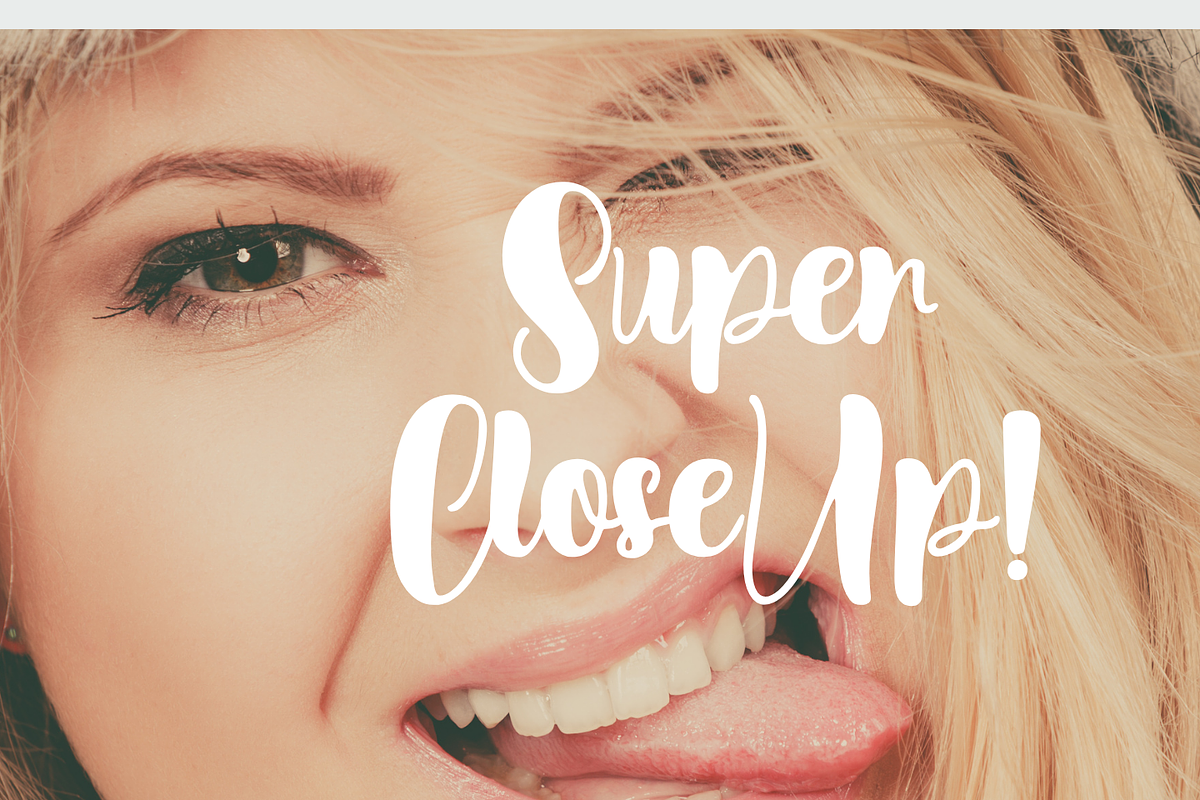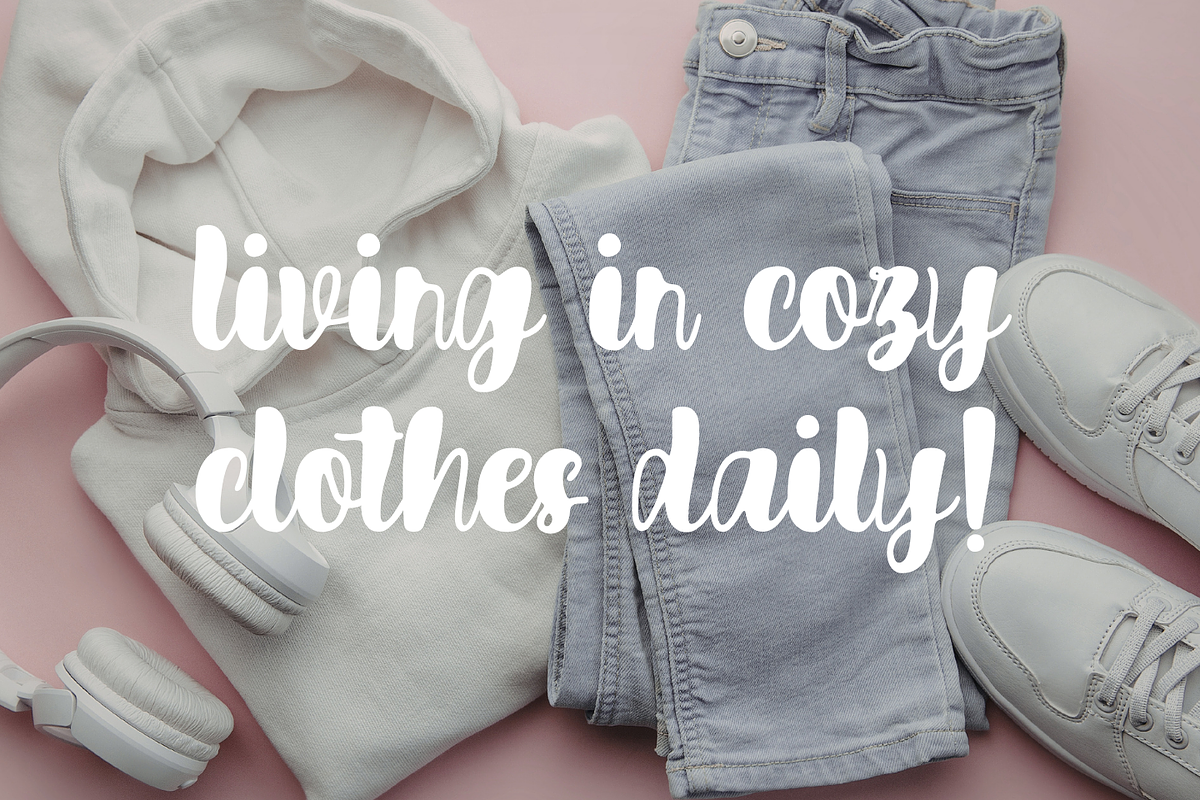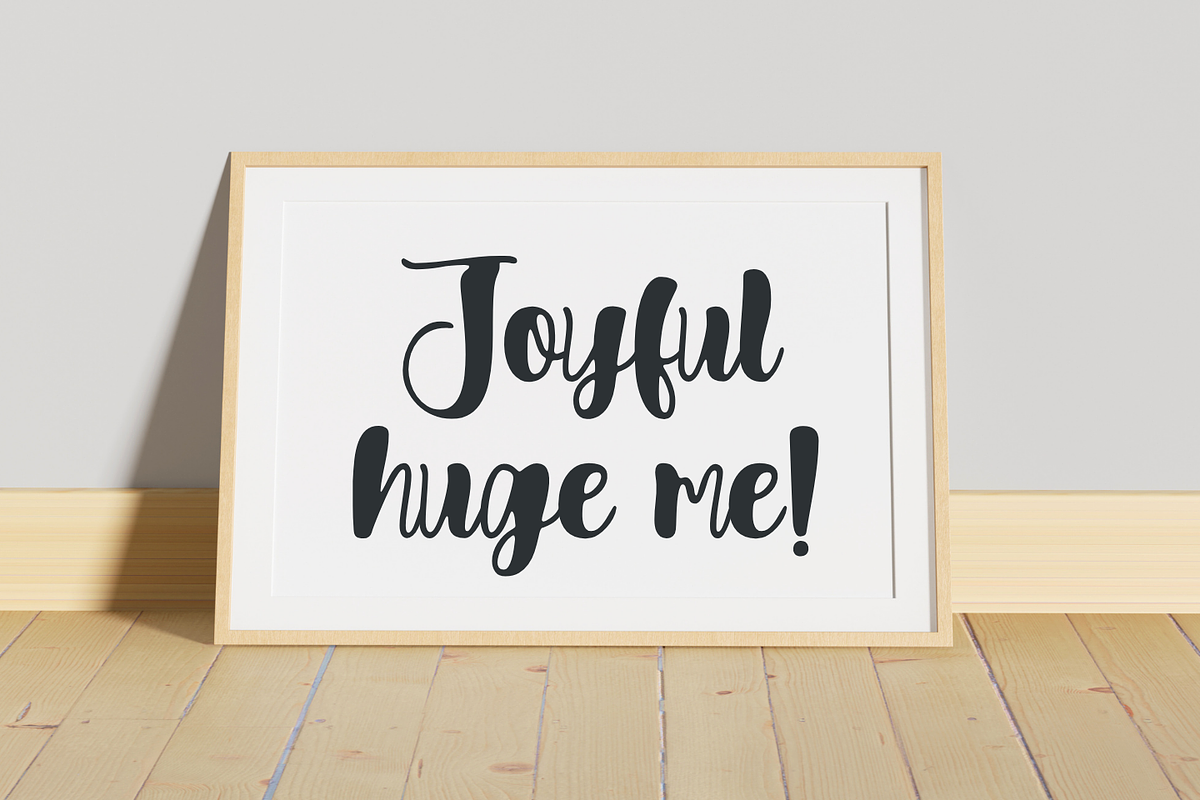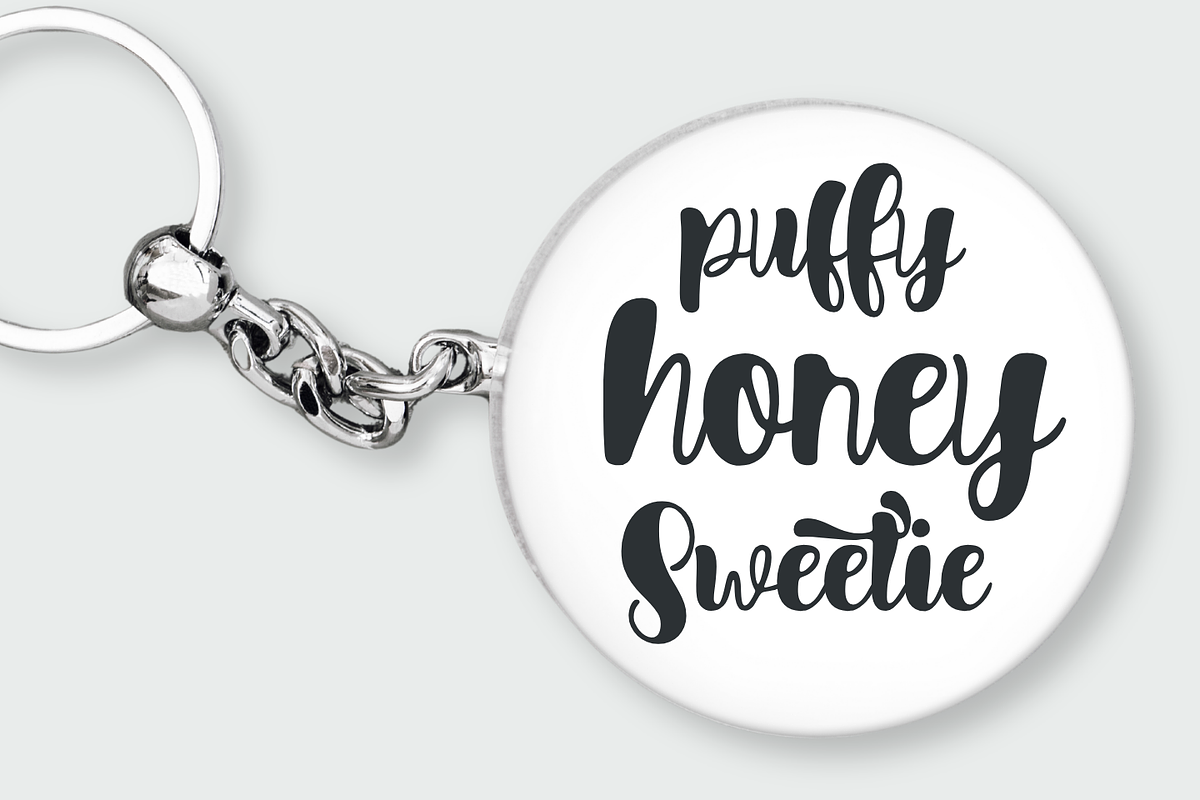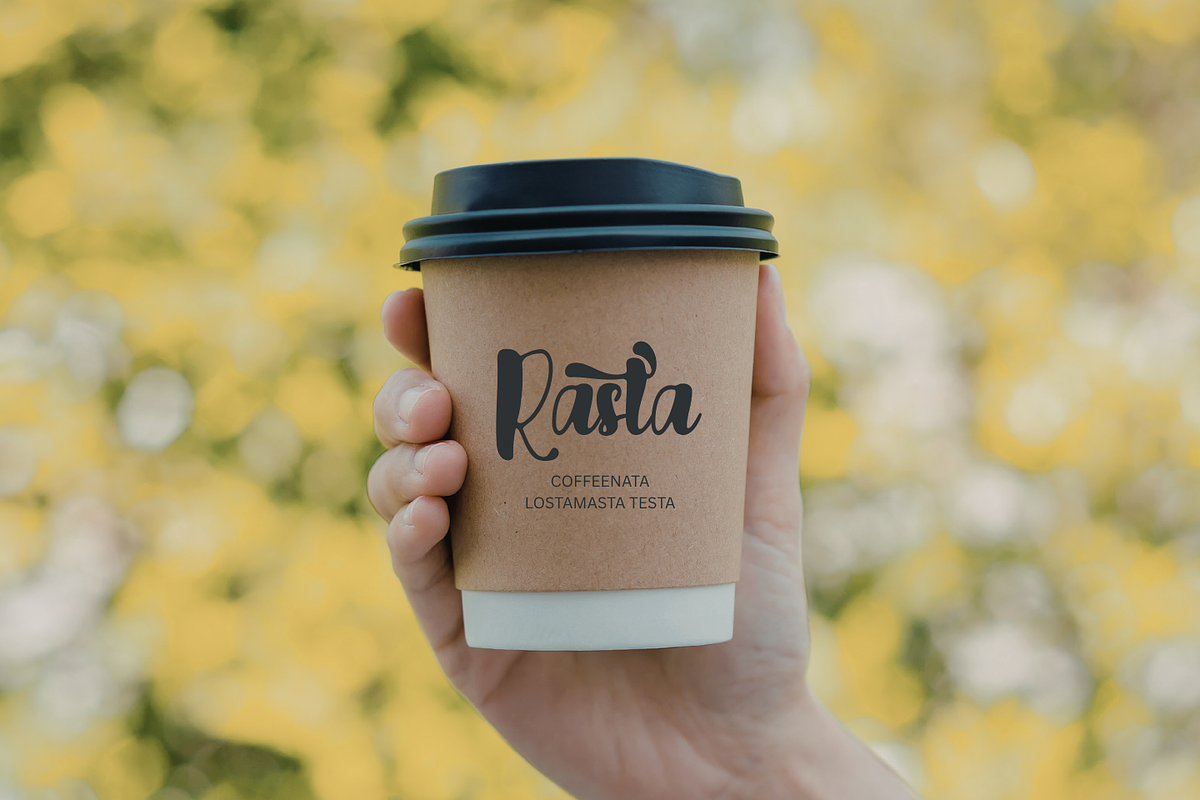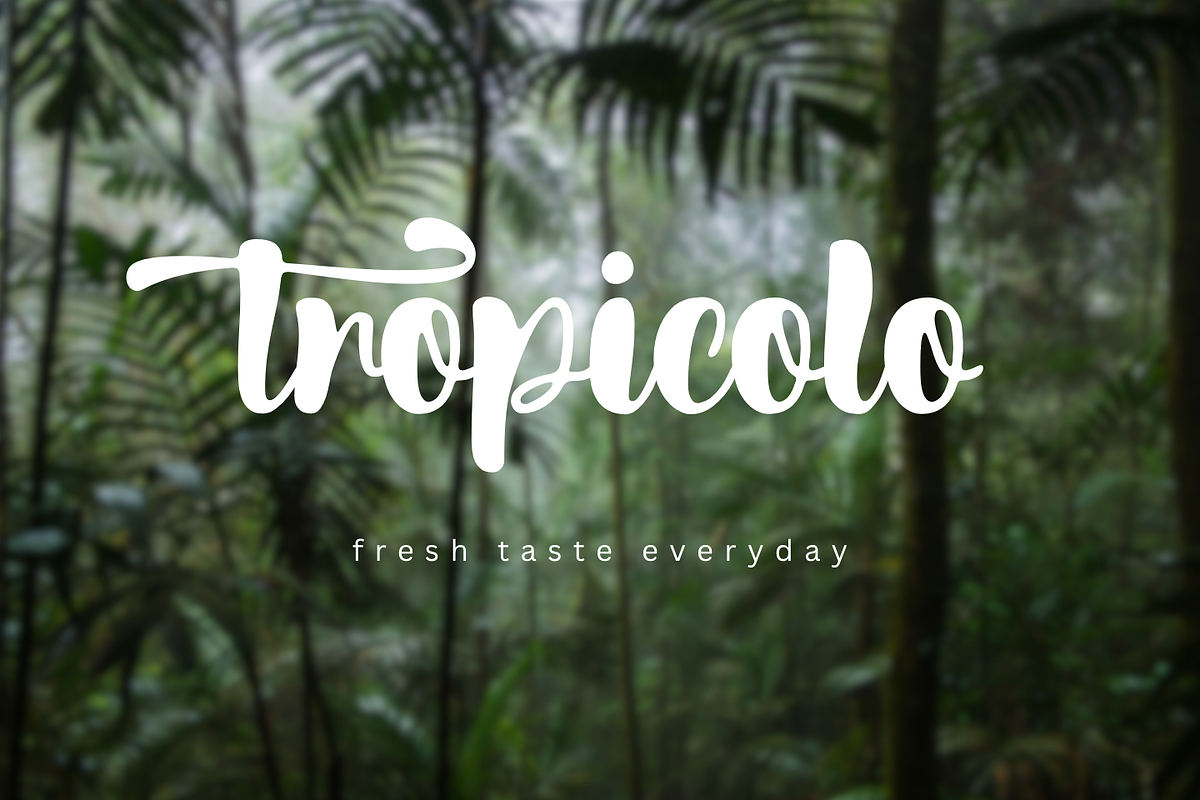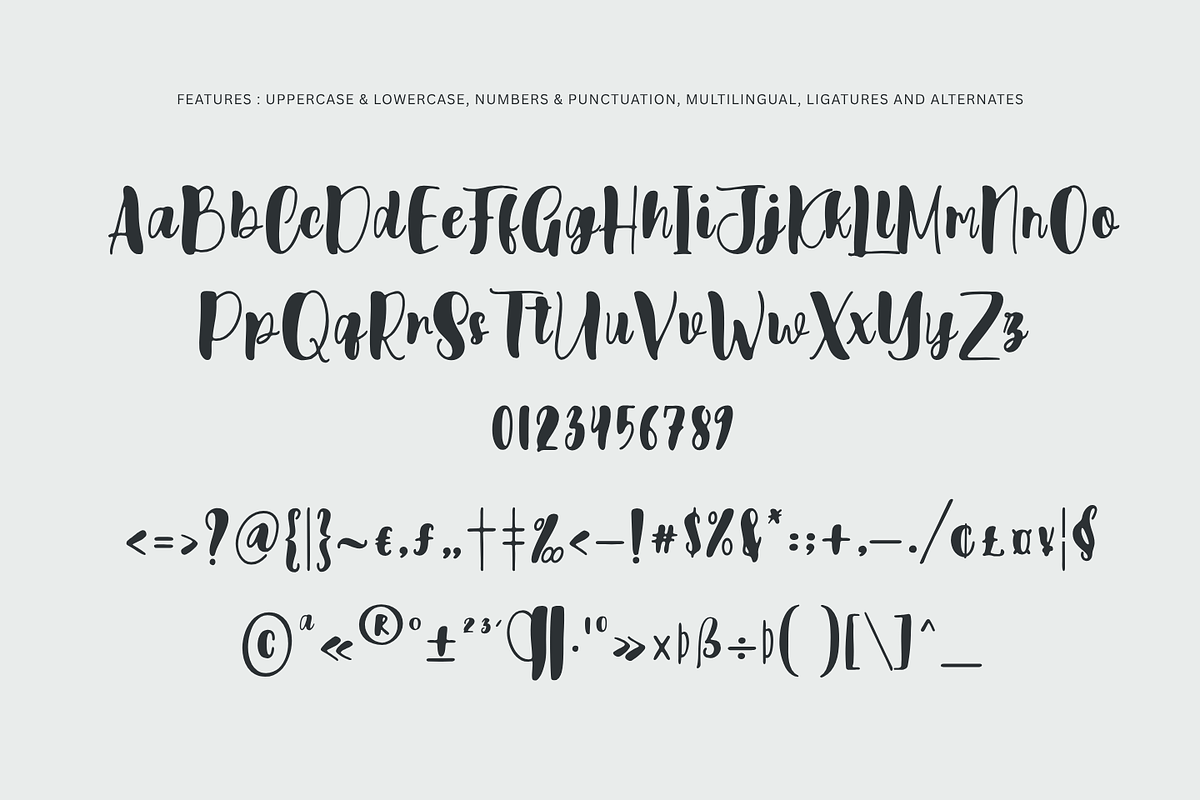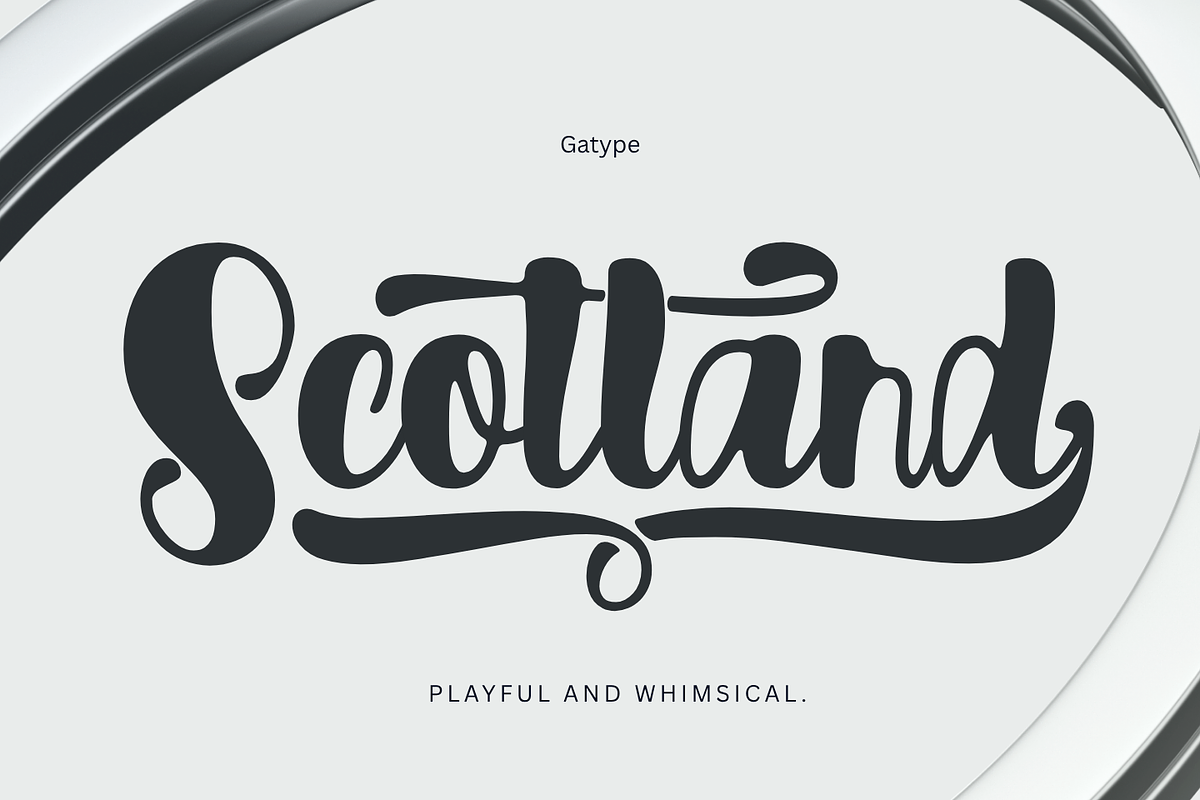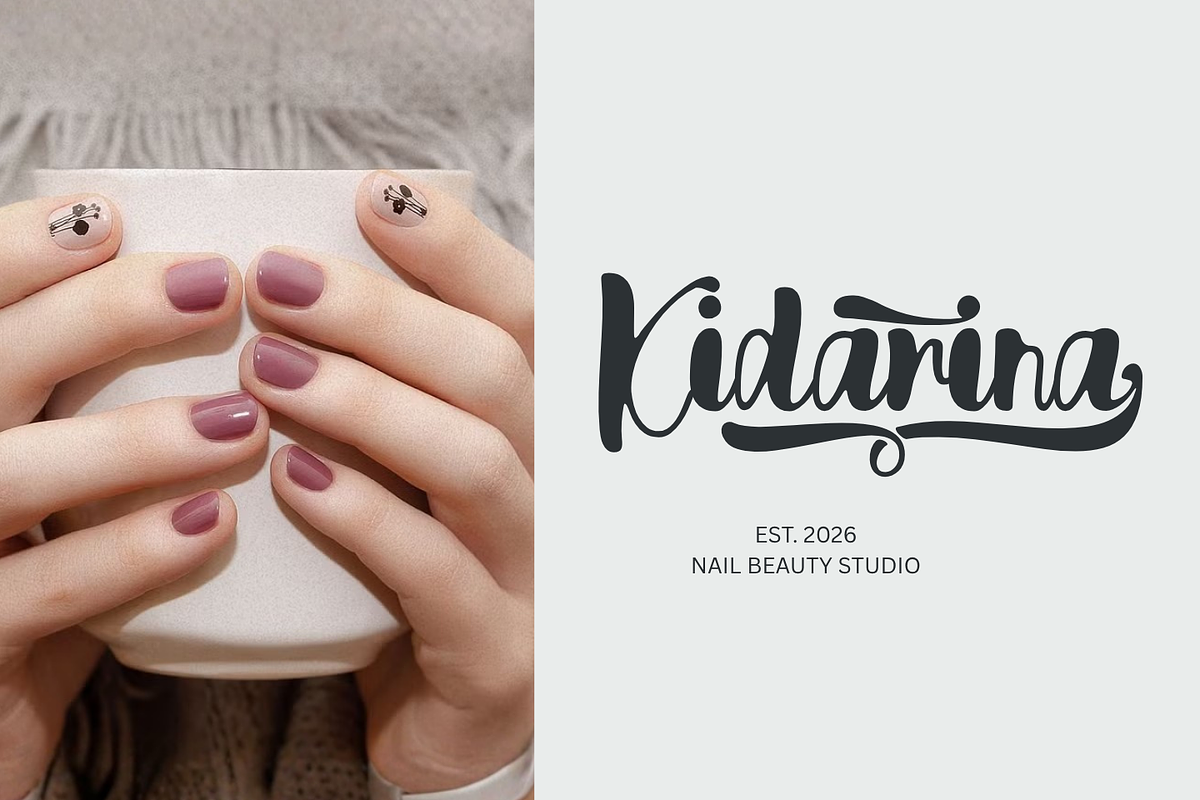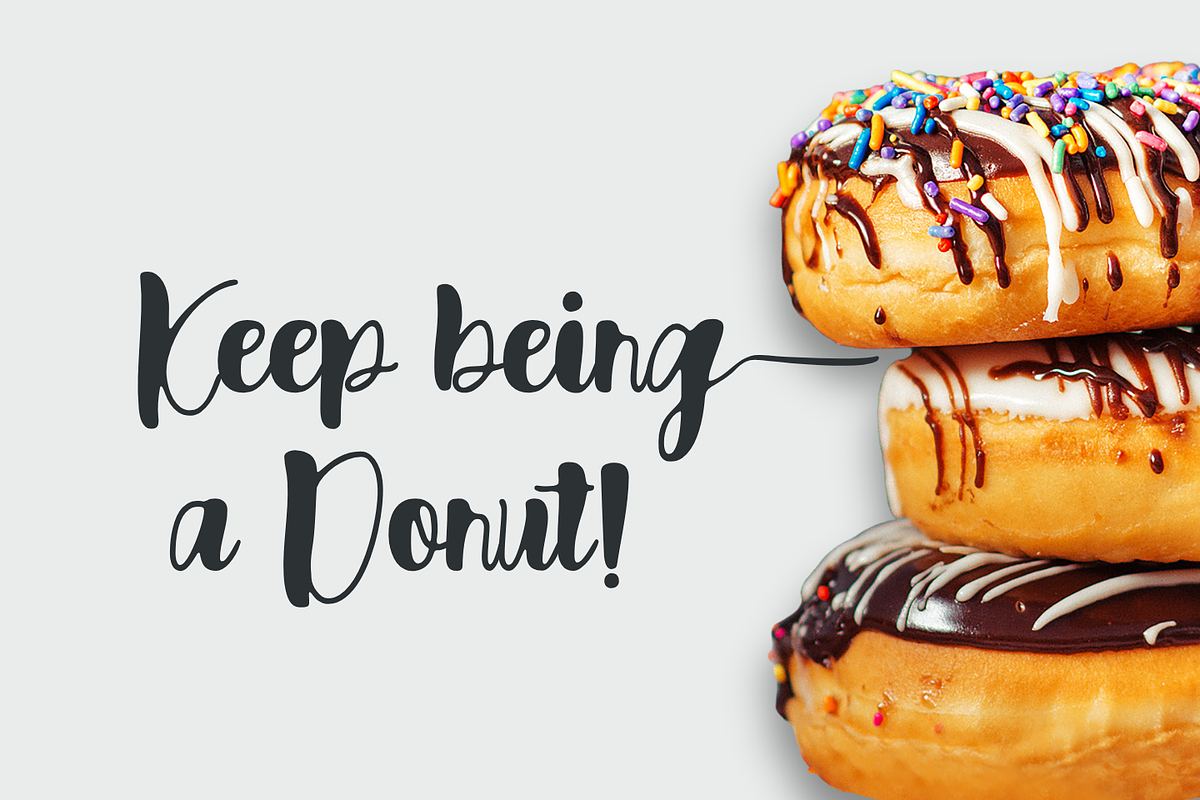
Scotland
Introducing Scotland, a classy modern script font crafted with a bold personality and smooth, flowing curves. Handwritten with precision, Scotland brings a natural, elegant touch to your designs while keeping a strong visual impact.
Created to give designers more creative freedom, this font blends expressive strokes with fluid movement—perfect for logotypes, branding, packaging, merchandise, labels, and more.